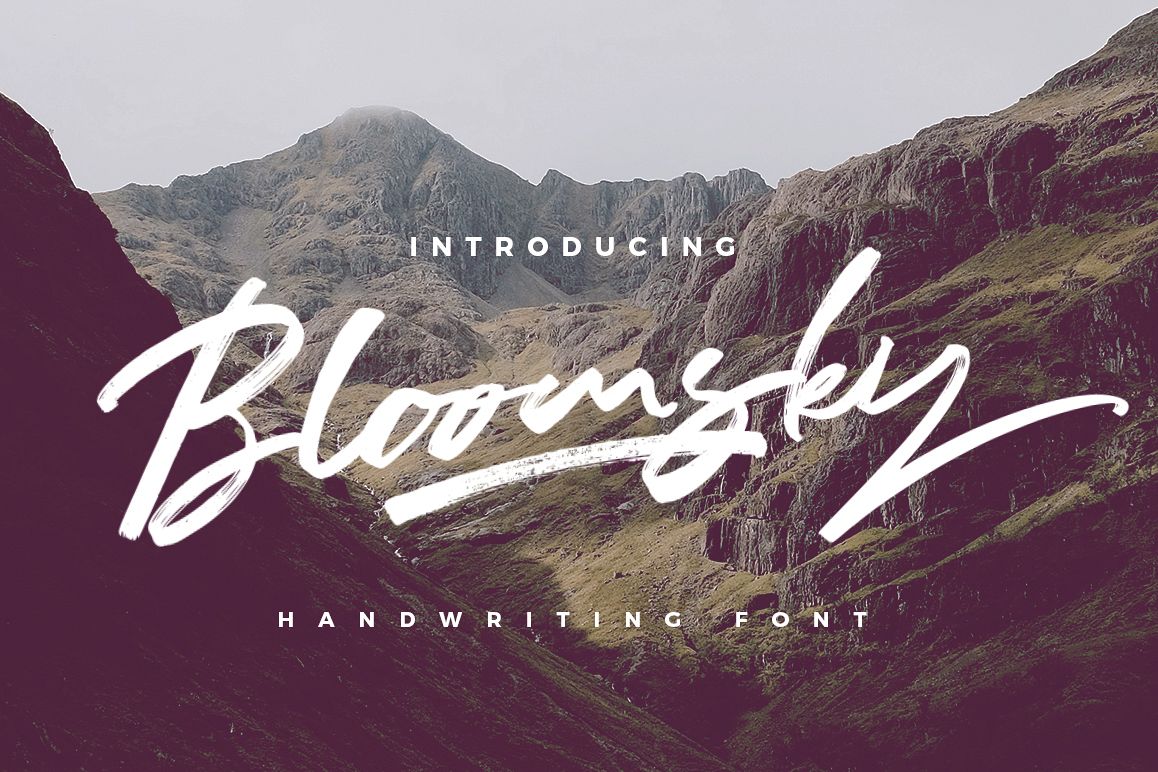
Bloomsky
Bloomsky swash
Bloomsky
Bloomsky slant
Bloomsky, with authentic dry brush imperfections, and a very bouncy baseline It has a perfectly paired complimentary marker font , and a super handy set of bonus Swash. Ideal for logos, handwritten quotes, product packaging, header, poster, merchandise, social media & greeting cards.
Bloomsky